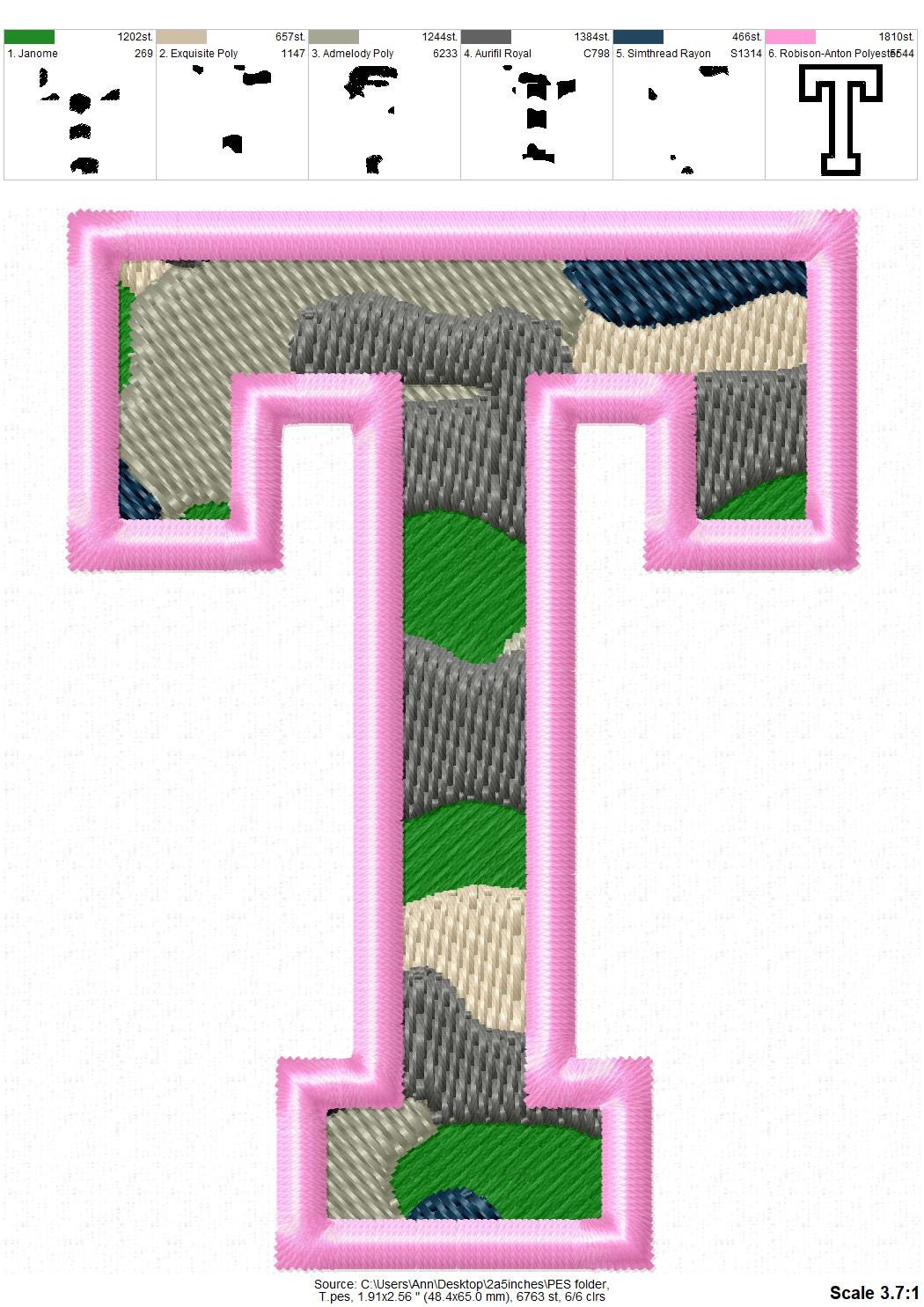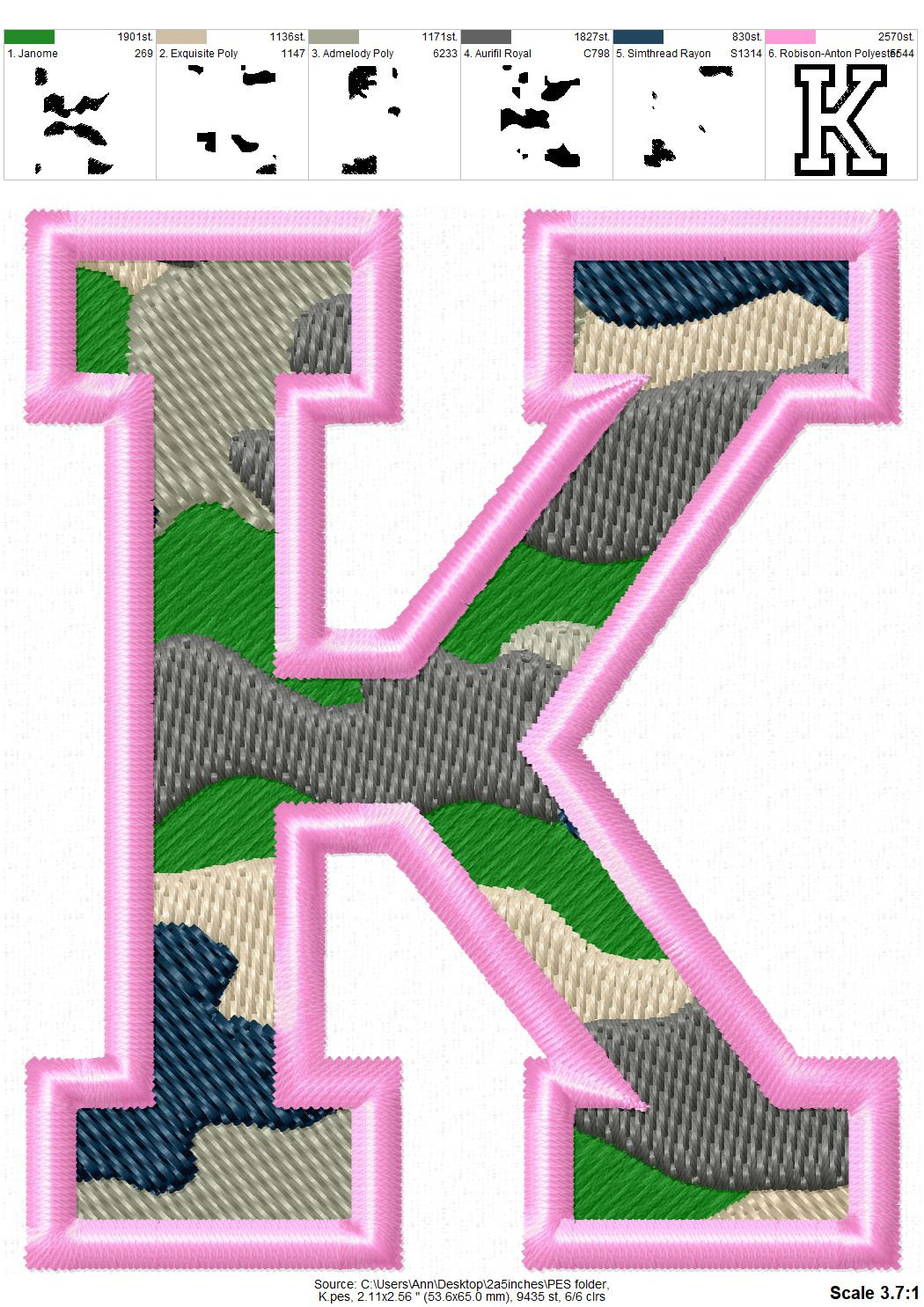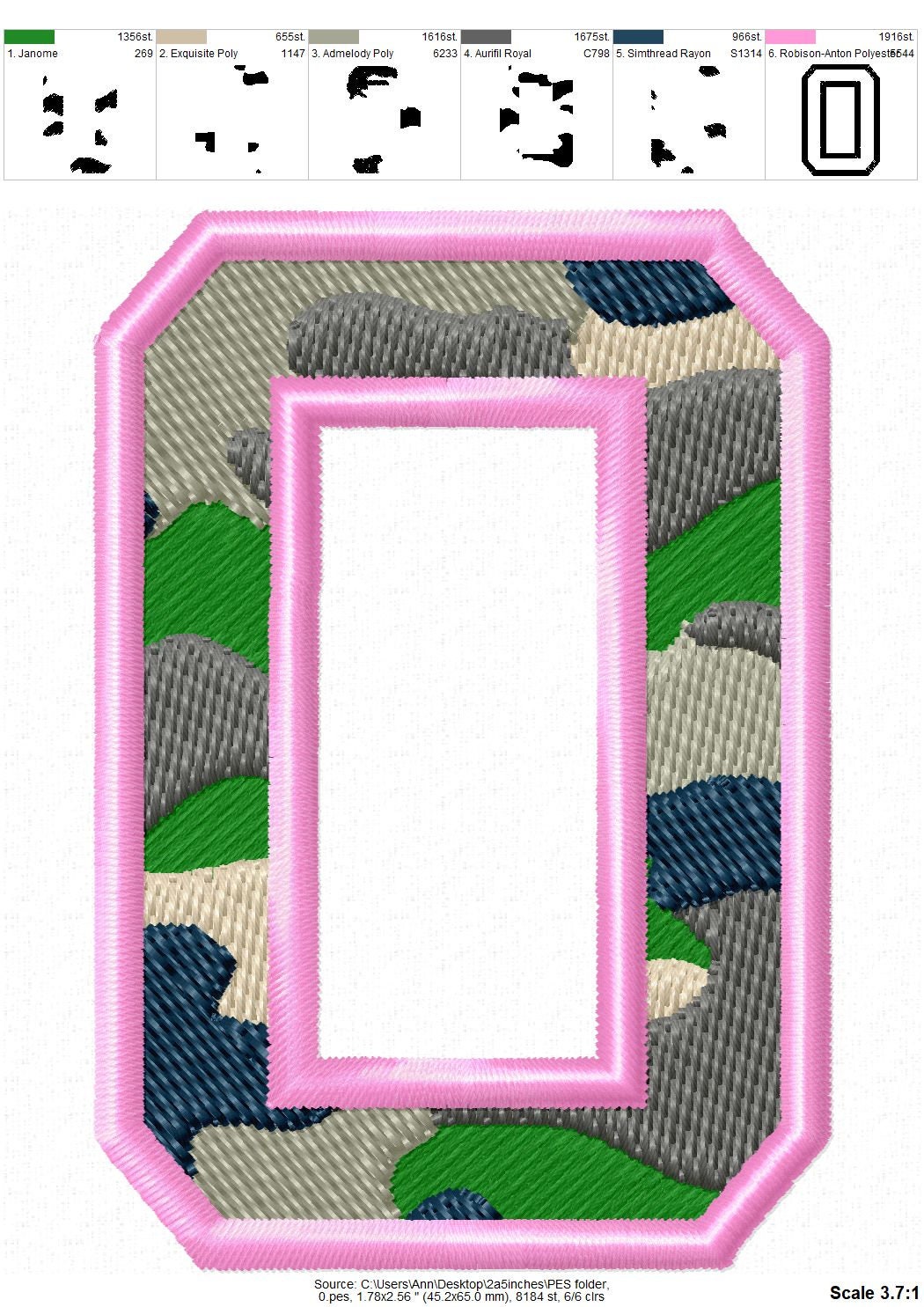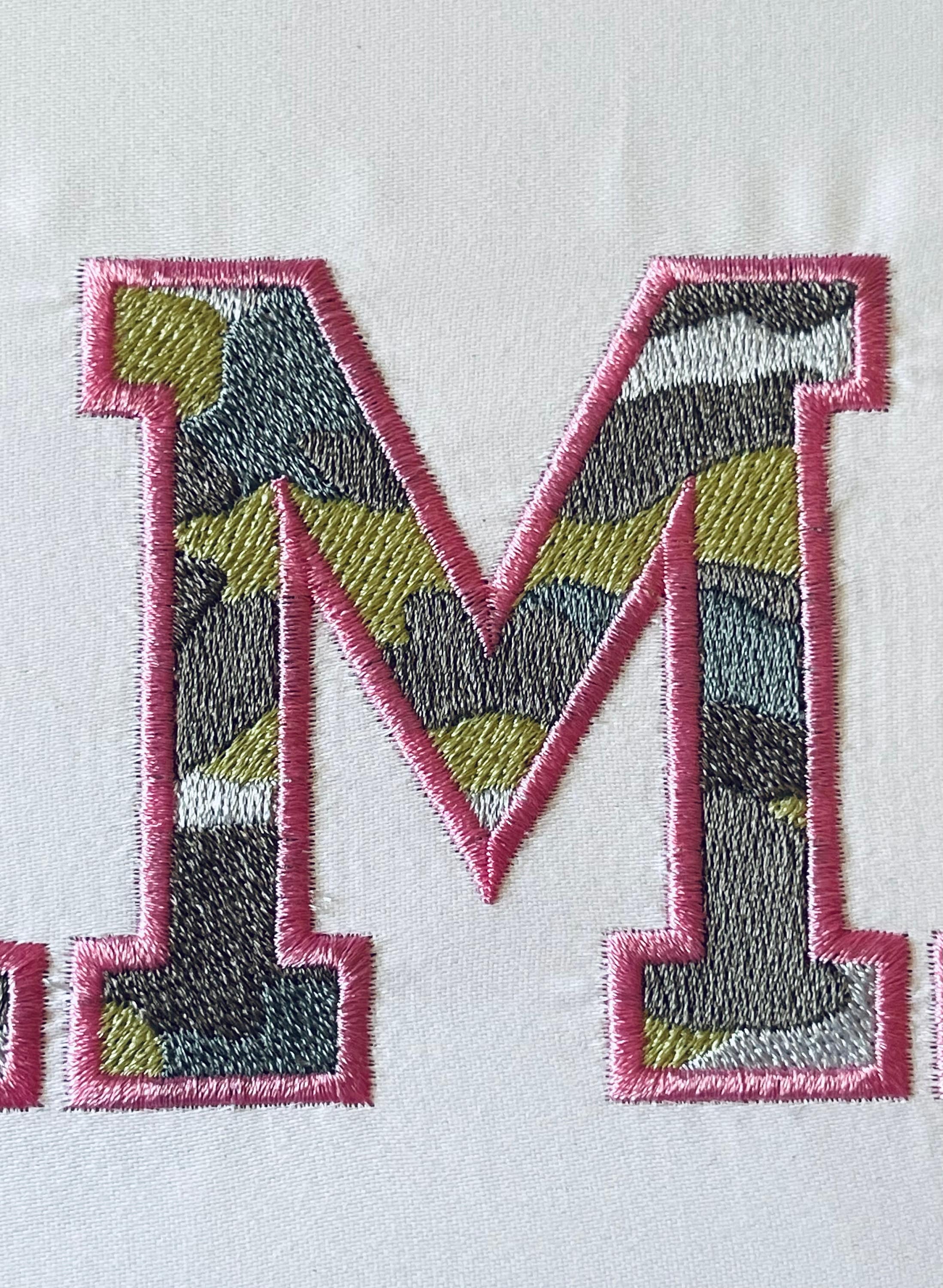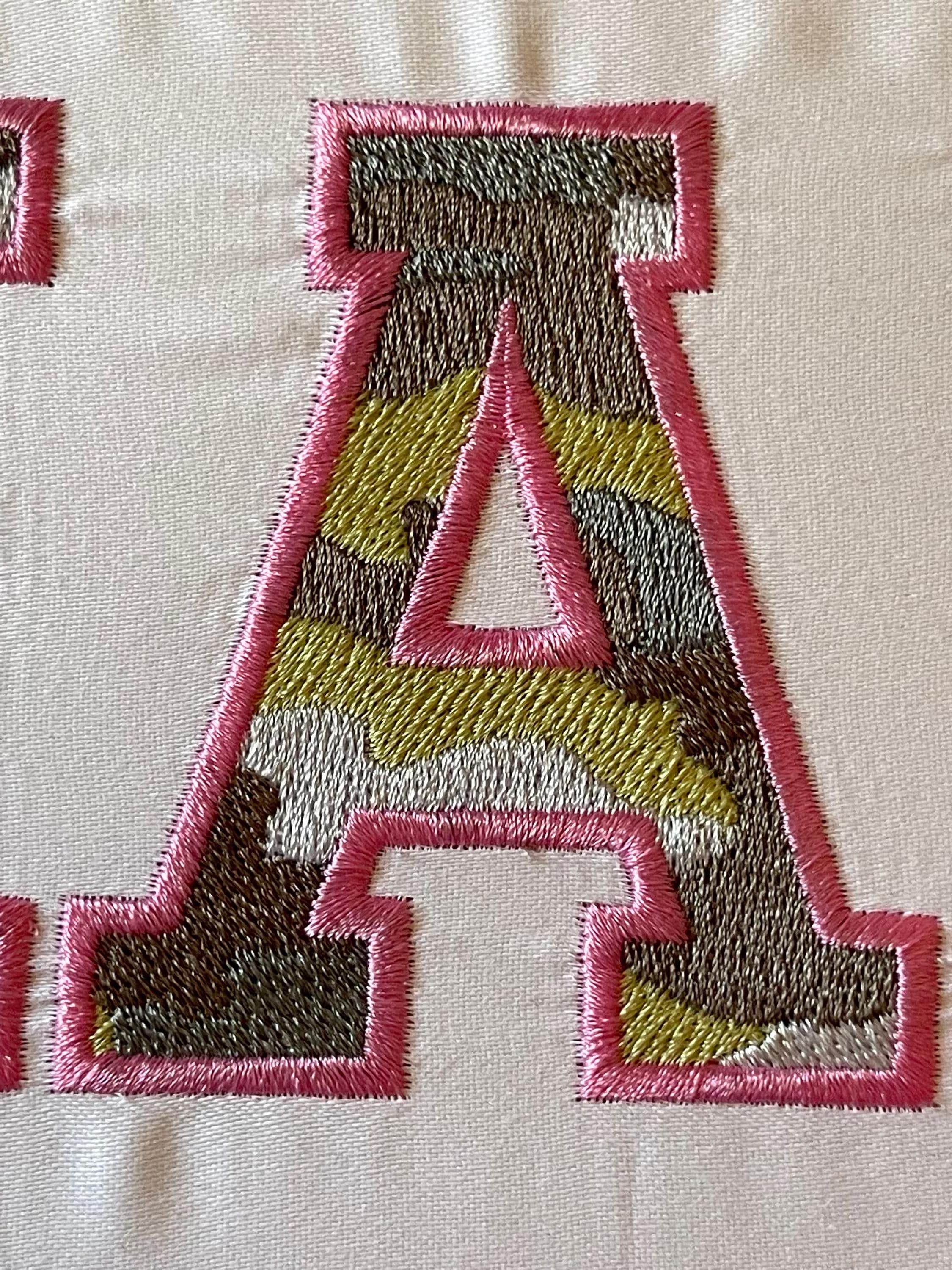
Camouflage embroidery Font camo alphabet letters and numbers machine embroidery designs Varsity fill stitch sport font embroidery BX font
This is a fill stitch design with 6 colors: 5 main colors, and an outline.
Whole alphabet letters A-Z and numbers 0-9